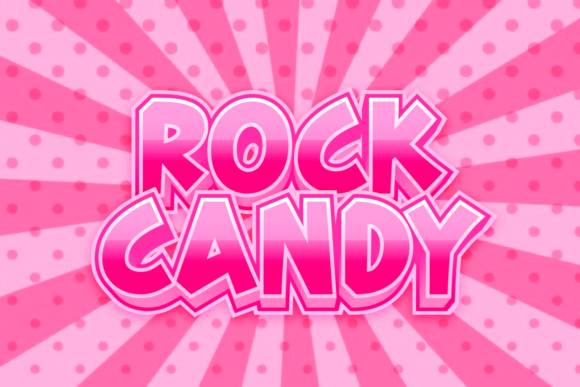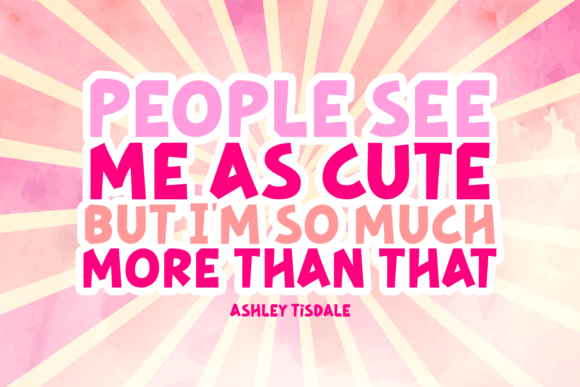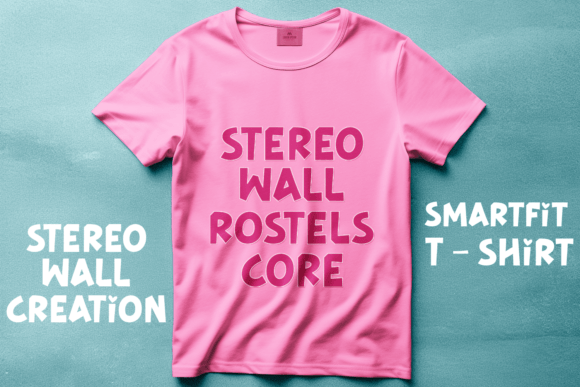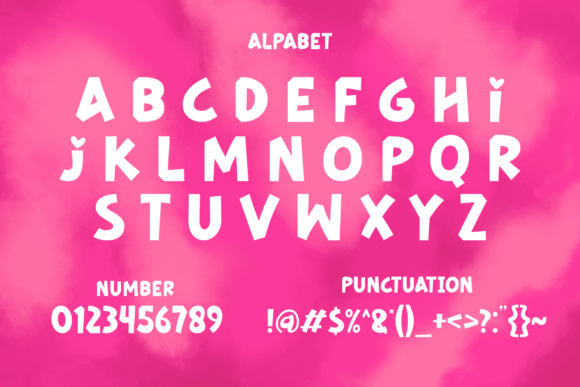
Introducing Harley Pink Font: The Ultimate Display Font for Whimsical Designs
Are you tired of using the same old fonts in your designs? Look no further than Harley Pink Font, a charming and playful display font that’s sure to catch your eye. With its cute and bubbly letters, Harley Pink brings a fun and friendly vibe to any project, perfect for adding a touch of whimsy to your designs.
The Characteristics of Harley Pink Font
Harley Pink Font is a display font that’s designed to make a statement. Its unique and playful letters are carefully crafted to bring a sense of fun and friendliness to your designs. The font features:
- Cute and Bubbly Letters: Harley Pink Font features letters that are rounded and soft, giving them a cute and bubbly appearance that’s sure to delight.
- Playful and Whimsical: The font’s playful and whimsical design makes it perfect for projects that require a touch of fun and personality.
- Easy to Read: Despite its playful design, Harley Pink Font is easy to read, making it perfect for use in a variety of projects, from titles and headings to paragraphs and body text.
Uses for Harley Pink Font
Harley Pink Font is a versatile font that can be used in a variety of projects, including:
- Graphic Design: Use Harley Pink Font to add a touch of whimsy to your graphic designs, from brochures and flyers to posters and banners.
- Crafting and Scrapbooking: Add a playful touch to your crafting and scrapbooking projects with Harley Pink Font, perfect for titles, headings, and journaling.
- Digital Design: Use Harley Pink Font in your digital designs, from social media graphics and blog posts to website headers and email newsletters.
Benefits of Using Harley Pink Font
There are many benefits to using Harley Pink Font in your designs, including:
- Unique and Eye-Catching: Harley Pink Font is a unique and eye-catching font that’s sure to grab attention and make your designs stand out.
- Versatile: Harley Pink Font is a versatile font that can be used in a variety of projects and applications.
Tips for Using Harley Pink Font
Here are a few tips for using Harley Pink Font in your designs:
- Use it Sparingly: While Harley Pink Font is a fun and playful font, it can be overwhelming if used too much. Use it sparingly to add a touch of whimsy to your designs.
- Pair it with Other Fonts: Harley Pink Font pairs well with other fonts, including serif and sans-serif fonts. Experiment with different pairings to find the one that works best for your design.
- Experiment with Colors: Harley Pink Font looks great in a variety of colors, from bright and bold to soft and pastel. Experiment with different colors to find the one that works best for your design.
Harley Pink Font is a charming and playful display font that’s perfect for adding a touch of whimsy to your designs. With its cute and bubbly letters, easy-to-read design, and versatile uses, Harley Pink Font is a great addition to any designer’s toolkit. Whether you’re a graphic designer, crafter, or digital designer, Harley Pink Font is sure to bring a smile to your face and a touch of fun to your designs.